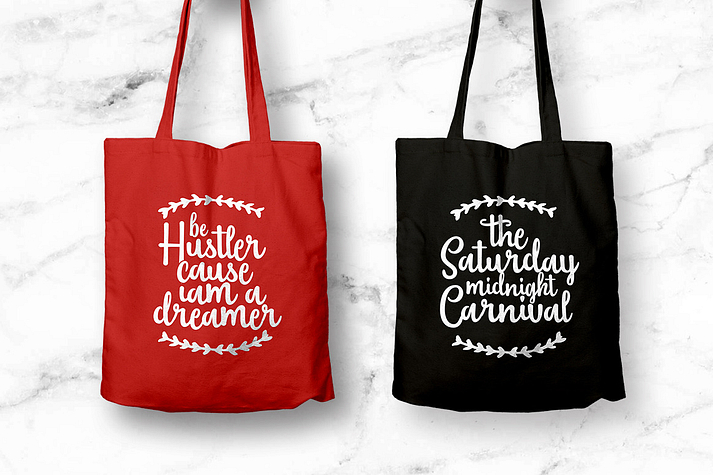
Sailoria
Sailoria is a font family. This typeface has two styles and was published by Wacaksara Co.
Sailoria is fancy handpainted font comes with two styles Regular and Bounce is really fun and great to use for any creative project like signature, stationery, logo, typography quotes, magazine, book cover, website header, clothing, branding, packaging design and more.